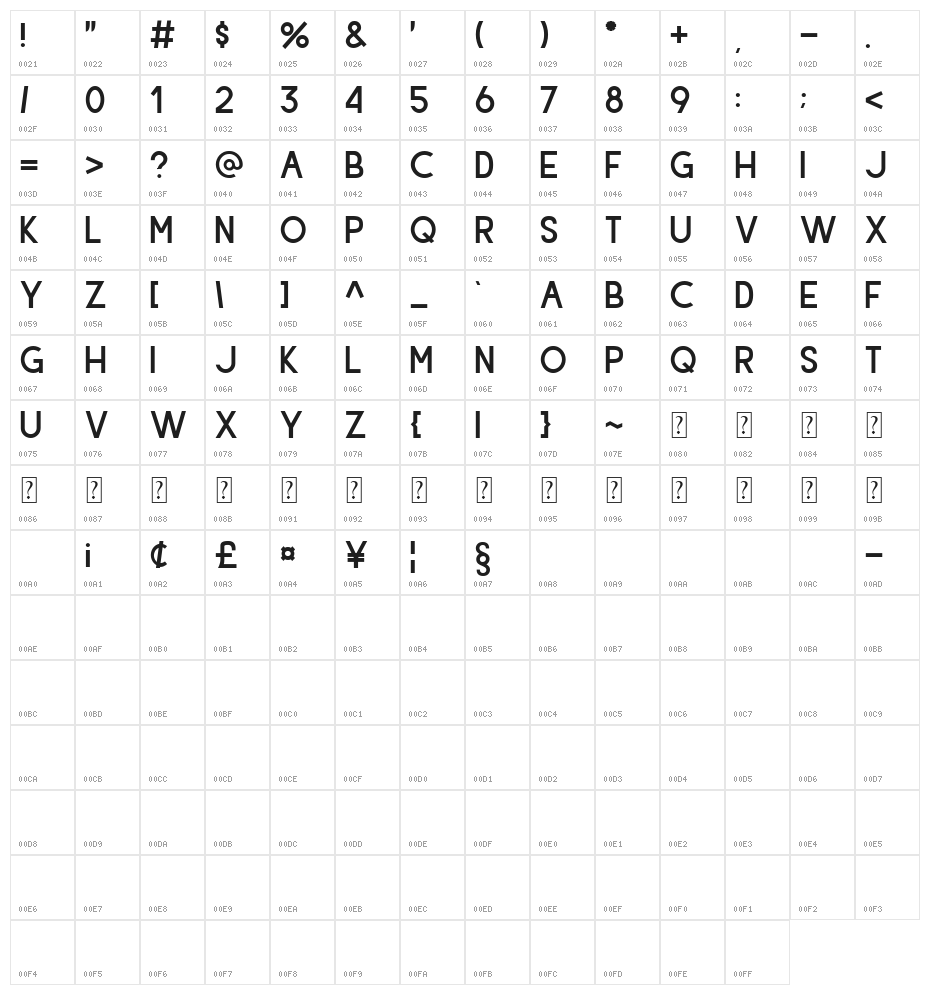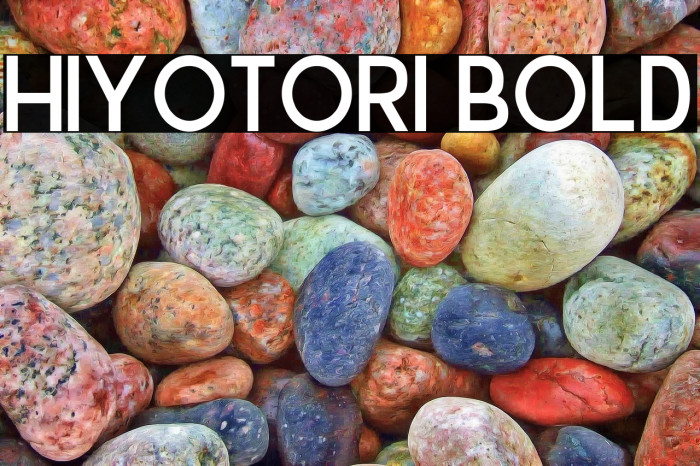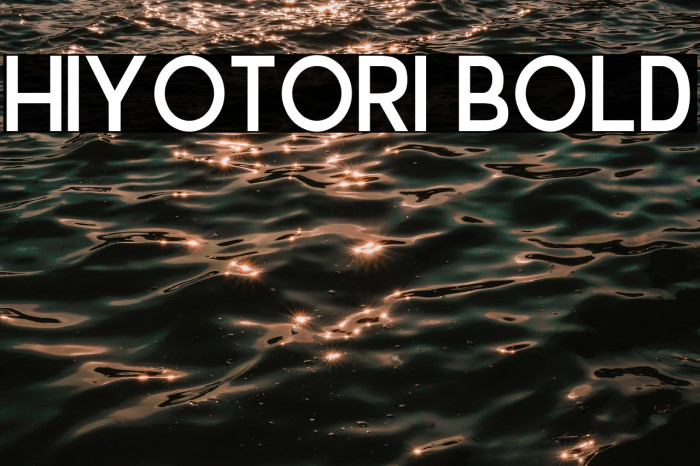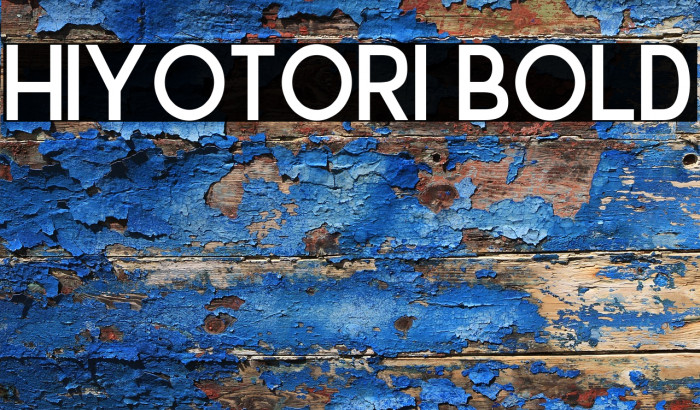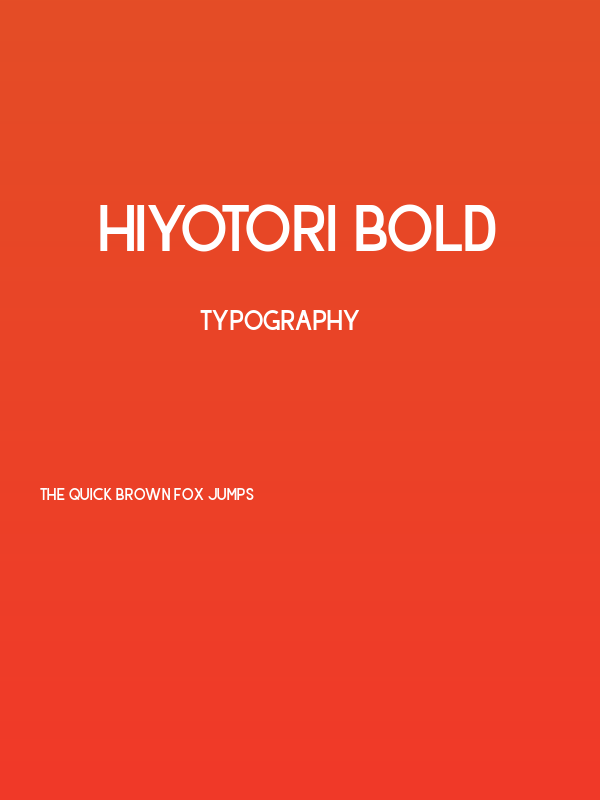
Hiyotori Bold Font
Hiyotori Bold Description
This font features a bold, geometric sans-serif style with clean and modern lines. The characters are uniform in width, providing a balanced and harmonious appearance. The uppercase letters are strong and assertive, while the lowercase letters maintain a consistent structure, enhancing readability. The numerals are clear and distinct, making them suitable for various applications. Special characters are well-defined, adding versatility to the font's usage. Overall, the font's simplicity and clarity make it ideal for contemporary design projects.
| Use Case | Headlines, Logos, Digital interfaces |
| Proposed Projects | Ideal for branding, advertising, headlines, and digital interfaces. |